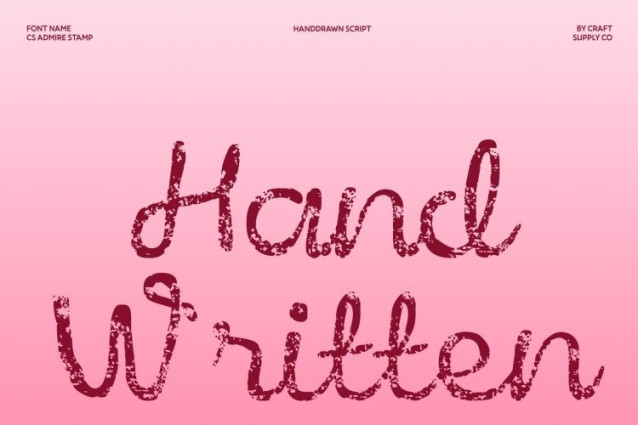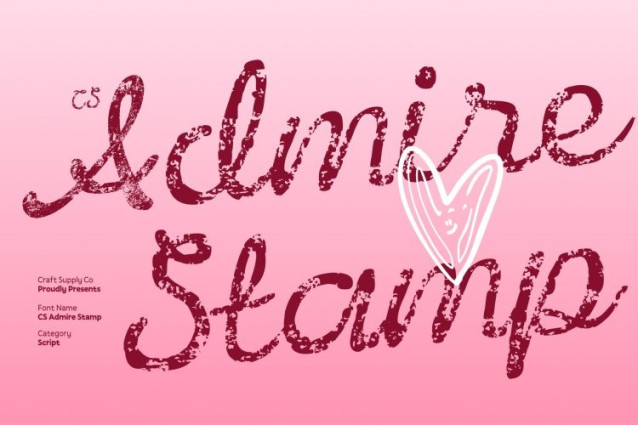
CS Admire Stamp Font
CS Admire Stamp Font This is a modern handwritten script font that blends fluid, expressive pen strokes with refined structure. Its smooth, sweeping forms create a graceful rhythm that feels natural and elegant. Enhanced with a distinctive stamp effect, the letterforms gain a handcrafted texture that adds depth, character, and visual authenticity.
Feminine Expression with Vintage Nuance
The soft curves and flowing connections radiate feminine charm and emotional warmth. The stamped texture introduces subtle imperfections inspired by traditional print techniques, giving the font an old-style, vintage personality. This combination creates a script typeface that feels expressive, romantic, and rich in visual storytelling.
Casual Handwriting with Polished Balance
Though inspired by natural handwriting, this font maintains clarity and professional balance through thoughtful spacing and smooth letter connections. The vintage stamp finish softens its modern structure, resulting in a harmonious blend of casual elegance and timeless character suitable for both personal and commercial projects.
Ideal for Romantic and Artistic Designs
Perfect for beauty branding, fashion identities, invitations, signature logos, social media graphics, and lifestyle visuals, this font delivers a soft yet confident typographic voice. Its feminine flow, unique texture, and vintage charm make it an excellent choice for designers seeking expressive handwriting with classic stamped appeal.